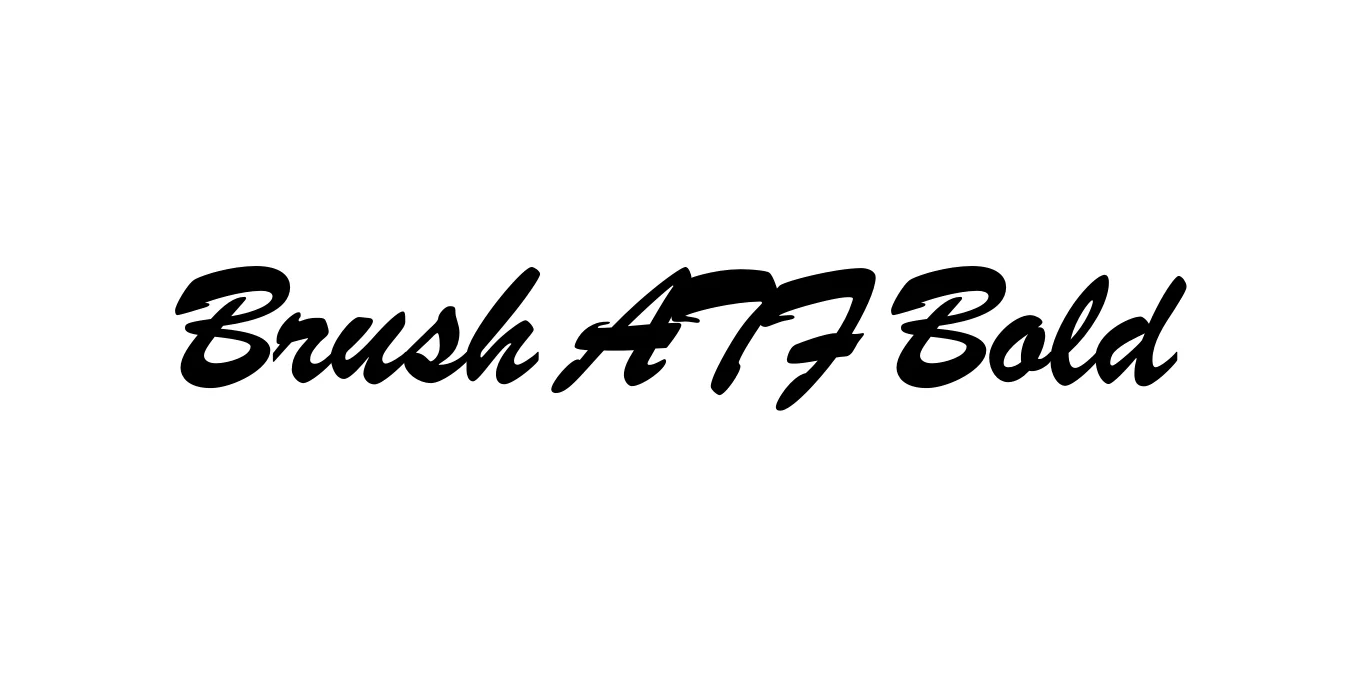
Brush ATF Bold
Designed by Robert E. Smith
Brush ATF Bold was designed by Robert E. Smith in 1942 for the American Type Founders (ATF). It stands as one of the most iconic script typefaces of the mid-20th century, meticulously crafted to emulate the look of casual, hand-lettered brushwork common in advertising and signage of that era. Its energetic, fluid strokes and rhythmic connectivity provide a sense of spontaneity and warmth, distinguishing it from the more formal scripts of the time.
Throughout its history, Brush ATF Bold has been a staple for graphic designers seeking a humanistic and approachable aesthetic. Despite the digital revolution, the font remains incredibly popular for vintage-themed projects, retro logos, and bold display work. Its heavy weight and distinct letterforms offer high visibility and impact, making it a timeless choice for capturing the spirit of classic American commercial art.
Brush ATF Bold Best Uses
Perfect for high-impact headlines in vintage-style marketing and print ads.
Excellent for creating approachable, hand-drawn brand identities with a retro flair.
Highly effective for storefront signs and display boards that require a bold, human touch.
Adds a casual and energetic feel to digital banners and promotional posts.